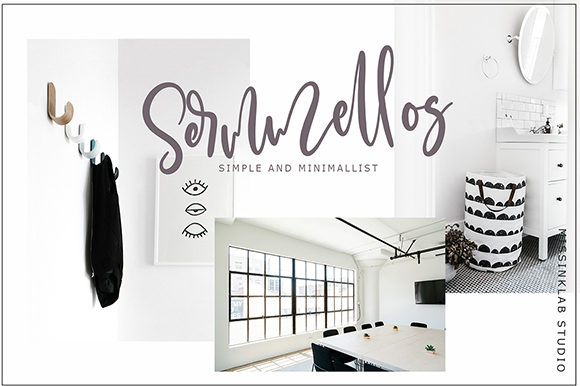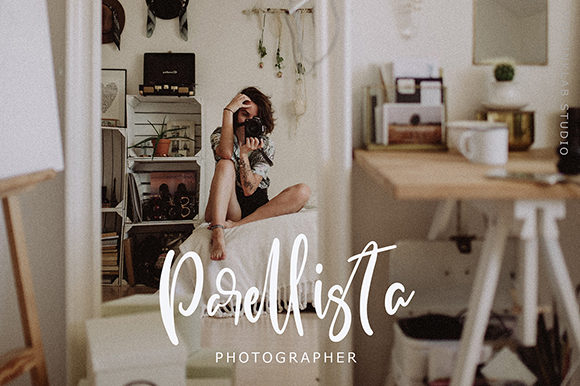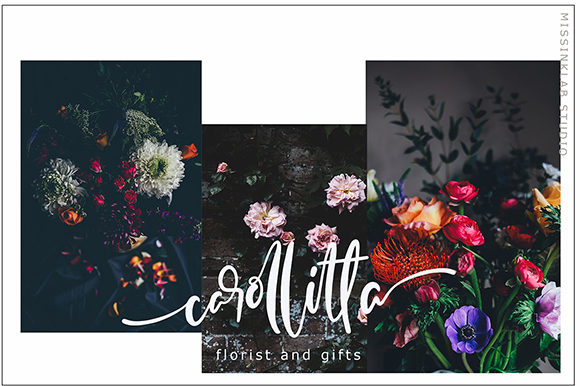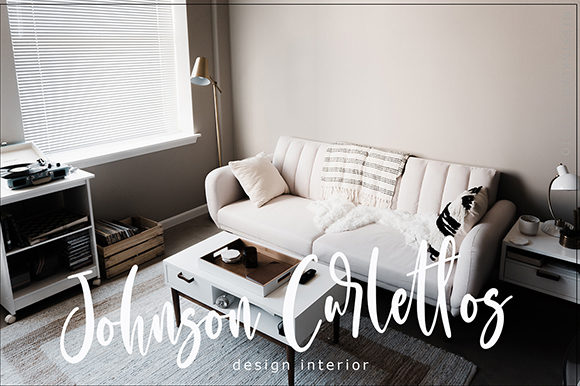
Introduction to Mottura Font
Mottura is a stunning handwritten font with a unique feel.
Get inspired by its one-of-a-kind charm .
Key Features of Mottura Font
Why Choose Mottura Font?
Mottura Font offers exceptional quality and versatility, making it a valuable addition to your design toolkit. Whether you’re creating for personal projects or commercial use, Mottura Font delivers professional results.